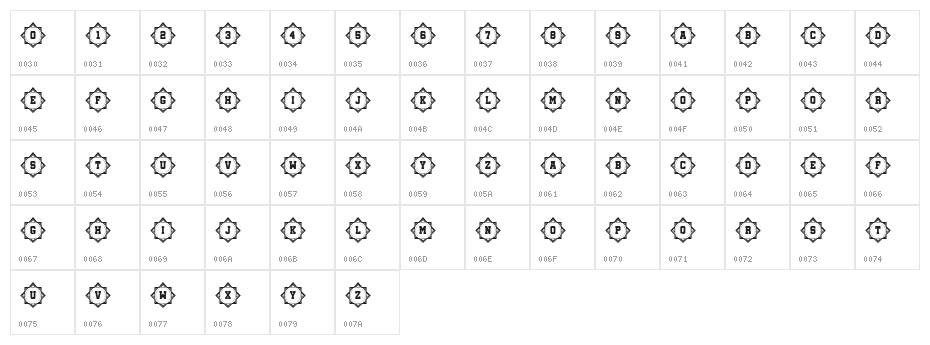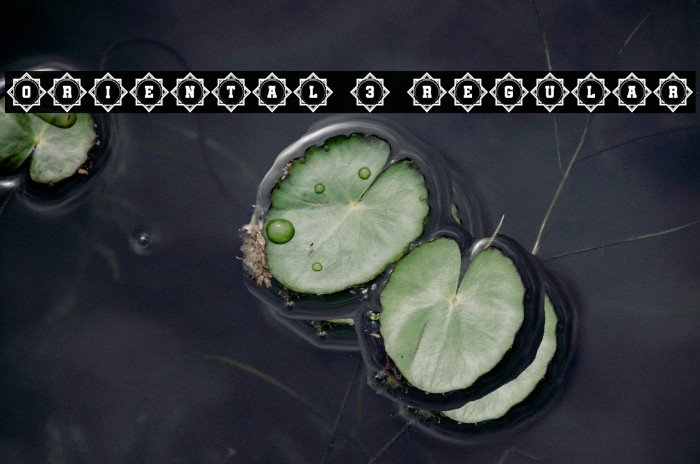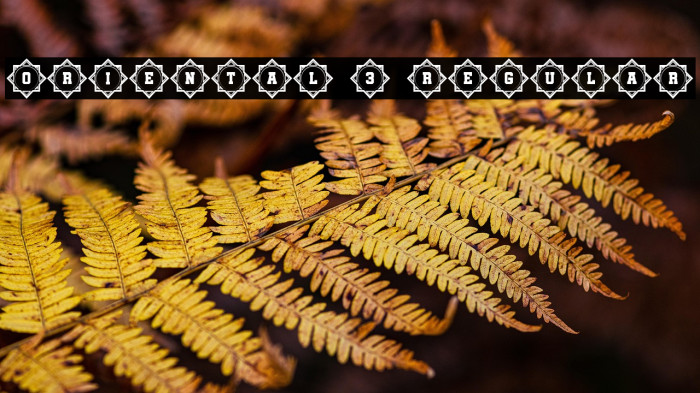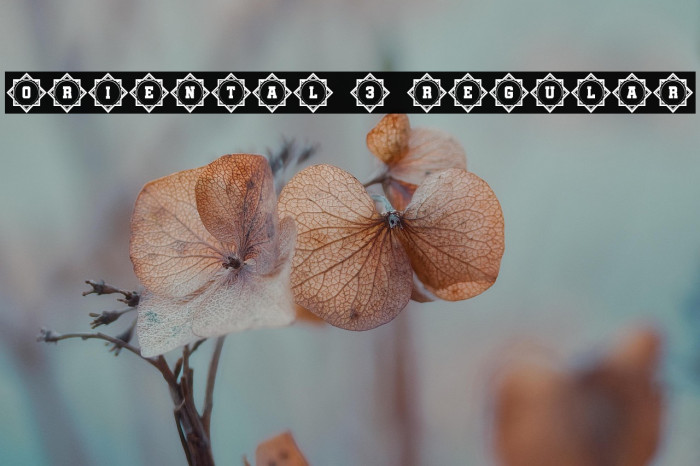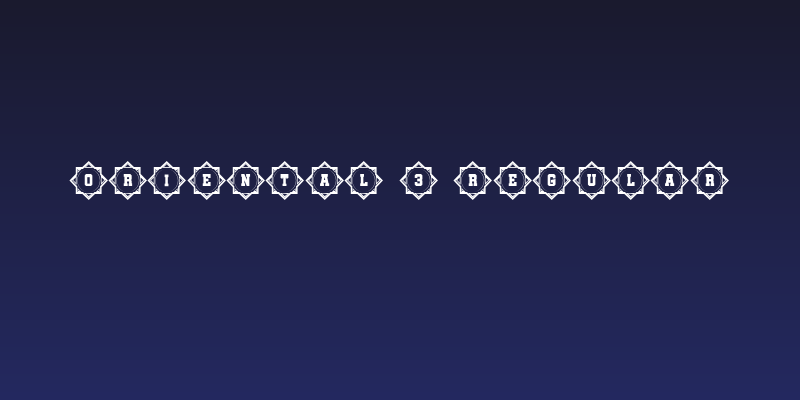
Oriental 3 Regular Font
Oriental 3 Regular Description
This font features a unique decorative style where each character is encased within a star-like geometric shape, giving it an ornamental and intricate appearance. The characters themselves are bold and sans-serif, providing a clear and modern look that contrasts with the elaborate borders. This combination of simple letterforms with complex outlines creates a striking visual effect, making it suitable for eye-catching designs. The font maintains consistent character spacing and alignment, ensuring readability despite its decorative nature. It is ideal for projects that require a touch of elegance and distinctiveness.
| Proposed Projects | Ideal for branding, posters, invitations, and any design needing a decorative and unique touch. |